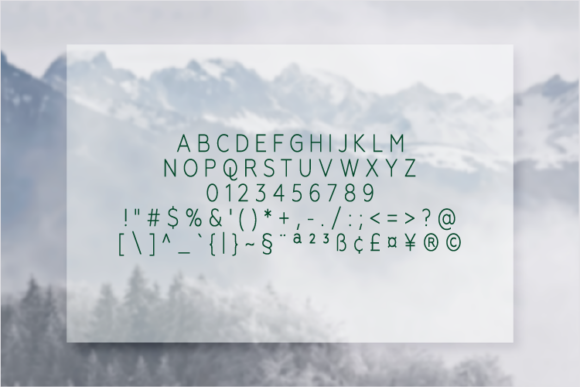
Introducing Allovoneue Regular Font: A Fresh Geometric Sans-Serif Typeface
In the world of typography, a new font family has emerged to capture the attention of designers and crafters alike. Meet Allovoneue, a modern, geometric sans-serif font that is taking the design community by storm. With its unique blend of sharp edges, geometrical letterforms, and minimal stroke contrast, Allovoneue is the perfect addition to any design project.
What is Allovoneue?
Allovoneue is a fresh, geometric sans-serif font family that draws inspiration from the neo-grotesk fonts of the 20th century. Characterized by its geometrical letterforms, sharp edges, and very small stroke contrast, Allovoneue is a versatile typeface that can be used in a wide range of design applications. From magazines and posters to branding and more, this font is sure to make a statement.
Key Features of Allovoneue
• Geometric Design: Allovoneue boasts a geometric design that gives it a modern and sleek look. Its sharp edges and clean lines make it perfect for designs that require a bold and contemporary feel.
• Sans-Serif Typeface: As a sans-serif font, Allovoneue is ideal for designs that require a clean and minimalist look. Its lack of serifs gives it a modern and streamlined appearance that is perfect for headings and body text.
• Neo-Grotesk Inspiration: Allovoneue draws inspiration from the neo-grotesk fonts of the 20th century, which were characterized by their geometric shapes and minimal ornamentation. This gives Allovoneue a unique and timeless look that is sure to stand the test of time.
• Versatility: One of the key features of Allovoneue is its versatility. This font can be used in a wide range of design applications, from magazines and posters to branding and more.
Why Use Allovoneue?
So why should you use Allovoneue in your next design project? Here are just a few reasons:
• Unique Look: Allovoneue has a unique look that sets it apart from other fonts. Its geometric design and sharp edges give it a modern and sleek appearance that is sure to grab attention.
• Legibility: Despite its geometric design, Allovoneue is highly legible, making it perfect for body text and headings.
• Versatility: As mentioned earlier, Allovoneue is an incredibly versatile font that can be used in a wide range of design applications.
• Modern Feel: Allovoneue has a modern feel that is perfect for designs that require a contemporary look.
Font Name Allovoneue Regular Font
Author Huntype
In conclusion, Allovoneue is a fresh and exciting font family that is sure to take the design community by storm. With its geometric design, sharp edges, and minimal stroke contrast, Allovoneue is the perfect addition to any design project. Whether you’re a designer, crafter, or simply someone who appreciates great typography, Allovoneue is definitely worth checking out.